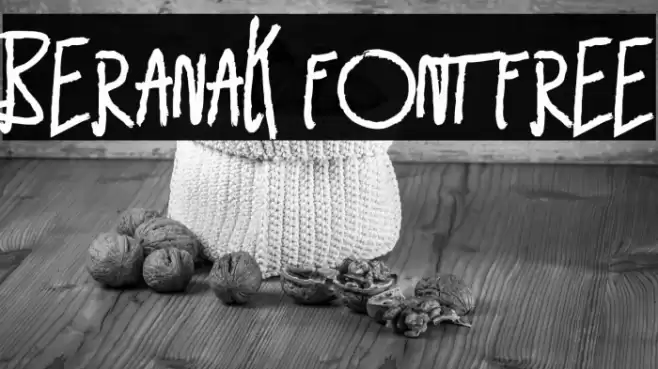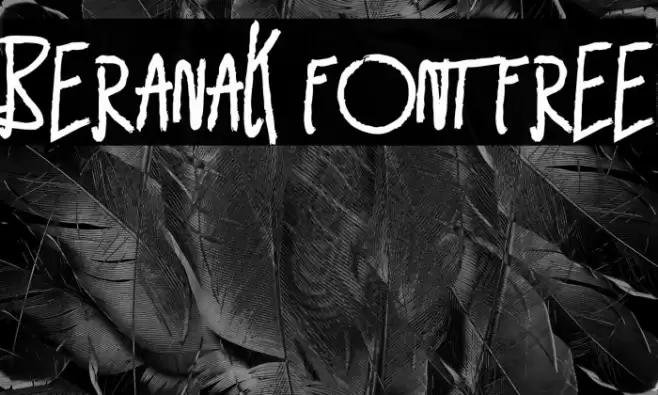
Beranak Font FREE Font
Beranak Font FREE Description
This font features a bold and expressive handwritten style, characterized by its dynamic and energetic strokes. The letters are irregular and have a playful, artistic flair, making it stand out with a unique personality. The uppercase and lowercase letters maintain a consistent style, with a slightly rough texture that adds to its charm. The numbers and special characters follow the same aesthetic, ensuring a cohesive look across all elements. This font is perfect for projects that require a personal touch, such as invitations, posters, or branding materials that aim to convey creativity and individuality.
A bold, expressive handwritten font with dynamic strokes and artistic flair from Regular fonts.
- Proposed Projects: Ideal for creative projects like invitations, posters, and branding materials.